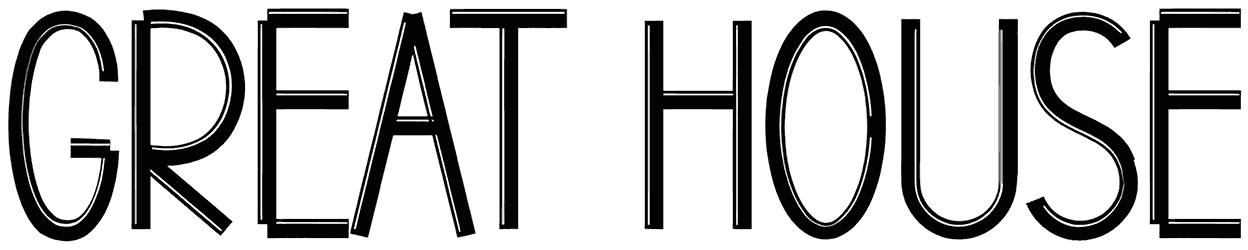
Great House Font
If selecting a good font takes you a lot of time and energy, then you have to visit the RB collection and take advantage of a marvelous all-caps farmhouse font such as Great House.
This font is mostly known for its simple style and high legibility. Due to its minimalistic, modern, or dynamic vibe, it can easily be matched with a wide set of creative ideas like movie posters, web page templates, greeting cards, or wedding invitations.